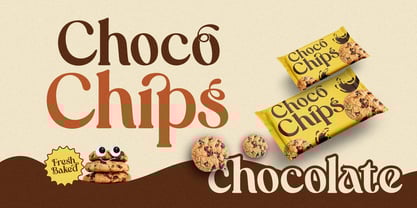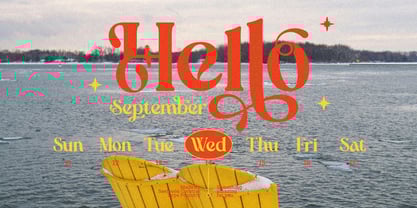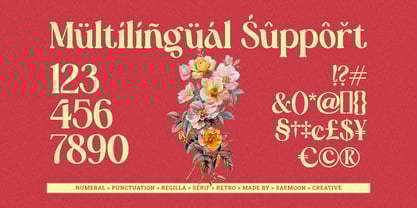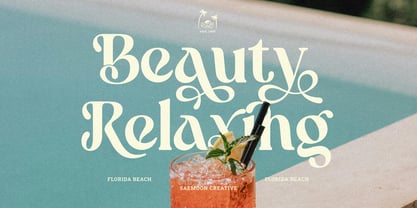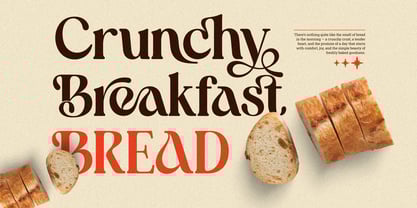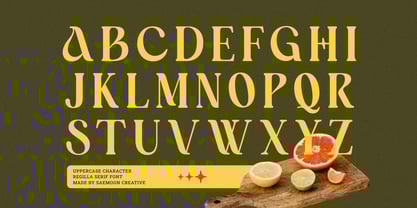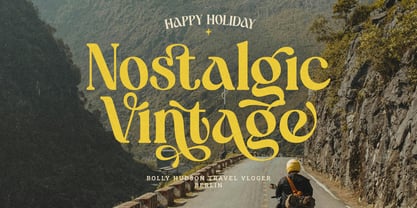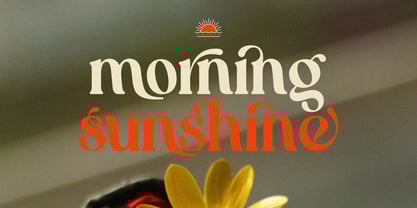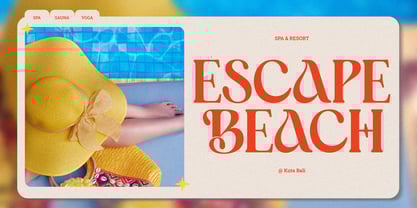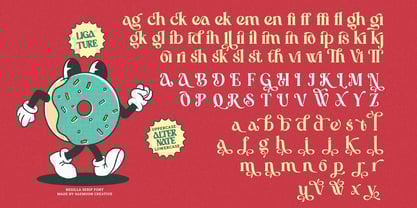
Regilla
by Saemoon Creative
The Regilla Font Family was designed by Sapto Susilo and published by Saemoon Creative. Regilla contains 2 styles and family package options. More about this family
Regilla is a retro serif display font that blends timeless vintage charm with a bold modern touch. Each letter is crafted with unique curves and refined details, bringing both elegance and strong character to your design. Featuring stylistic alternates, ligatures, and an italic version, Regilla offers creative flexibility to elevate your typography. It is perfect for posters, covers, branding, logos, editorials, and any project that calls for a striking visual statement. With its distinctive style, Regilla is the ideal choice for designers looking to capture a classic retro feel with a contemporary appeal.
Designers: Sapto Susilo
Foundry: Saemoon Creative